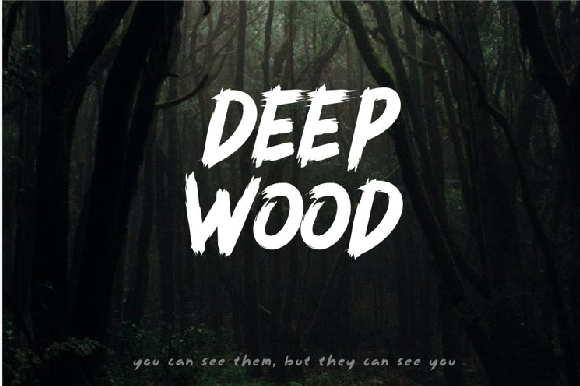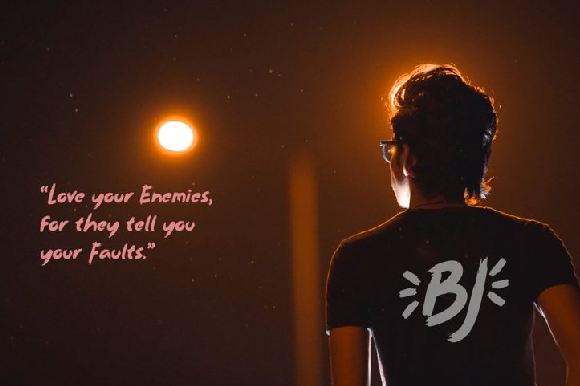
The Perfect Brushstroke for Your Creative Vision
You’ve finally nailed down the concept for your next project, but something’s missing – a font that truly captures the essence of your artistic vision. Perhaps you’re brainstorming ideas for a street art-inspired poster, or you need the perfect title font for your debut novel. Whatever your creative pursuit, you’re likely on the hunt for a font that adds a touch of whimsy and personality to your design.
Enter the Bromph Town Font, a charming display font that brings a playful, hand-painted feel to your projects. This versatile font is designed for street-style needs, crafts, and informal designs, making it an invaluable asset for designers looking to add a touch of creativity to their work. With its unique brushstroke aesthetic, the Bromph Town Font is perfect for a wide range of applications, from posters and book titles to movie titles and more.
Bromph Town Font Key Features
- Font Family: Bromph Town Font is a unique, hand-drawn typeface with a mix of modern and vintage elements.
- Unique Characteristics: Features a distinctive, hand-crafted feel with subtle imperfections, giving it a personal and authentic touch.
Bromph Town Font Review
I recently had the chance to work with the Bromph Town Font, and I must say, it’s a unique addition to any design project. Here are my thoughts:
- The font’s quirky, hand-drawn feel adds a touch of personality to any design.
- It’s perfect for creative projects that need a bit of whimsy, such as children’s books, advertising, or social media graphics.
- The font’s irregularities make it easy to read and understand, even at smaller font sizes.
- The font may not be suitable for formal or professional projects, as its informal feel may come across as unprofessional.
- The lack of consistency in letterforms and spacing may make it challenging to use in larger blocks of text.
- The font may not be easily readable in certain color combinations or backgrounds.
Overall, I think the Bromph Town Font is a great addition to any designer’s toolkit, but it’s essential to use it thoughtfully and consider its limitations. With the right project and a bit of creativity, this font can shine and add a unique touch to your designs.
Experiment with different font sizes, styles, and colors to create visually appealing designs. Use the Bromph Town Font in conjunction with other fonts to create a unique and engaging visual identity.
The Bromph Town Font is ideal for creating whimsical and playful designs, such as children’s books, advertisements, and social media graphics. It can also be used for creating a unique and memorable brand identity.